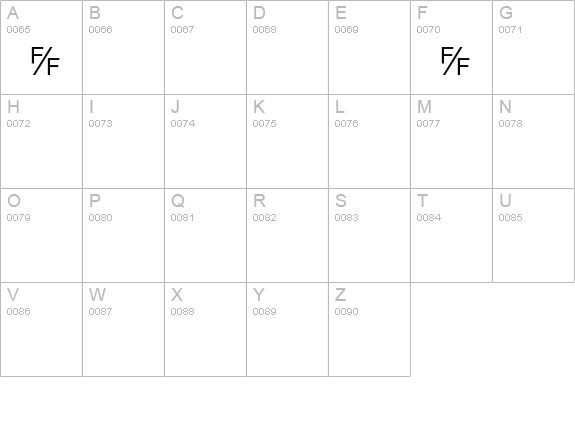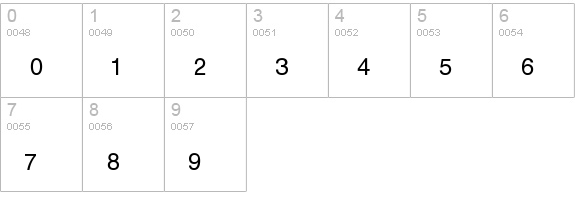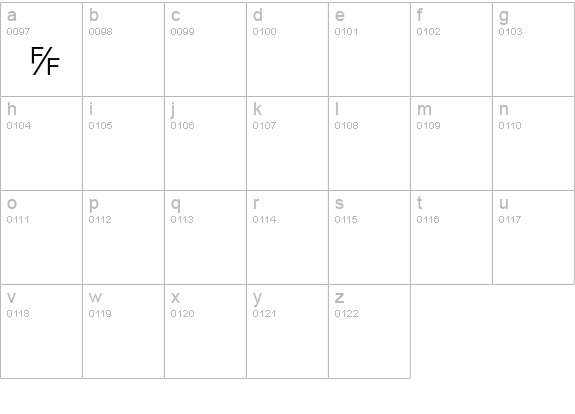
HelvFB Font Details
HelvFB is a versatile and modern sans-serif font that exudes elegance and professionalism. With its clean lines and balanced proportions, HelvFB is perfect for a wide range of design projects, from branding to editorial layouts. This font offers a clean and polished look that is sure to enhance any design it is used in. And the best part? HelvFB is available for free download at FontsMarket.com. This means you can easily access and use this high-quality font in your projects without any cost. Don't miss out on this opportunity to elevate your designs with HelvFB - download it today and see the difference it can make!